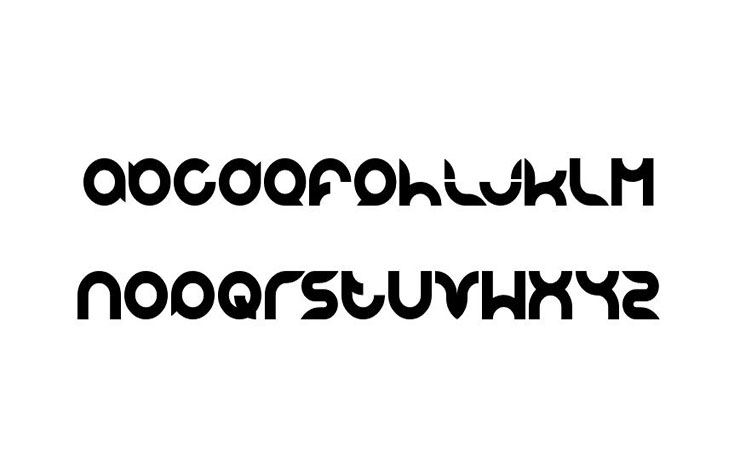
Pandaman Font is an elegant techno typeface that has playful and bold letterforms. It was designed and published by Weknow Font Foundry.
All its texture was created by the designer in a sharp way you will observe that the designer used thick, rounded strokes and a slightly irregular design for creating it.
It’s the perfect font for your next project. Great for album titles, posters, T-shirts, branding, marketing materials, social media posters, banners, headers, flyers, product packaging, logos, etc.
This bold display typeface will best work in branding, T-shirt prints, posters, headers, titles, flyers, banners, advertisements, company names, branding, product designs, gaming projects, futuristic websites, special event cards, game graphics, product designs, branding, company names, logo designs, book covers, movie headers, display titles, product designs, and many other good things.
What is the Pandaman Font?
Pandaman Font is an elegant techno typeface that has playful and bold letterforms. It was designed and published by Weknow Font Foundry. Ideal for posters, banners, headers, titles, and more.